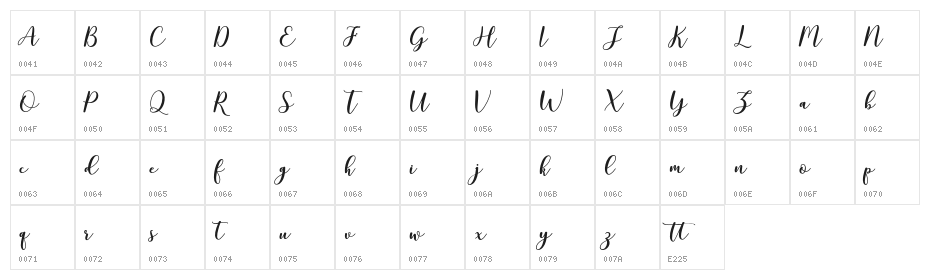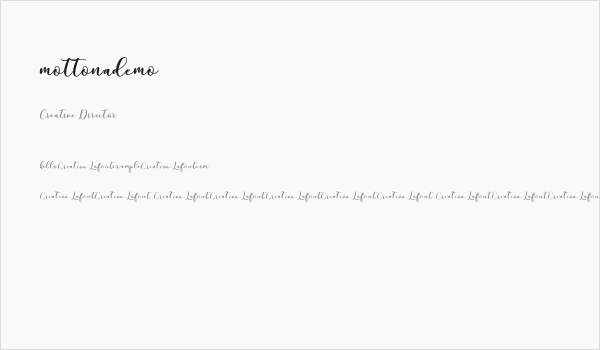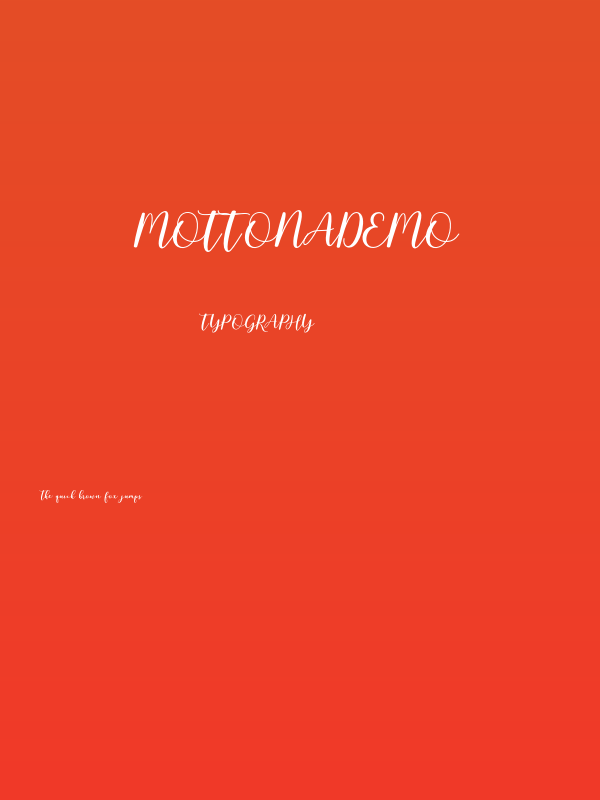
mottonademo Font
mottonademo Description
This elegant script font features a flowing, cursive style with smooth, connected strokes that give it a sophisticated and graceful appearance. The uppercase letters are tall and slightly slanted, with decorative flourishes that add a touch of flair. The lowercase letters maintain a consistent flow, enhancing readability while retaining an artistic quality. The font's design is reminiscent of traditional calligraphy, making it suitable for formal and decorative purposes. Its high contrast between thick and thin strokes adds to its visual appeal, making it stand out in various design contexts.
| Overall Style | Elegant, Decorative |
| Use Case | Headlines, Invitations, Branding |
| Proposed Projects | Ideal for wedding invitations, elegant branding, greeting cards, and decorative headings. |